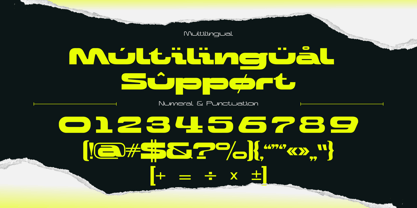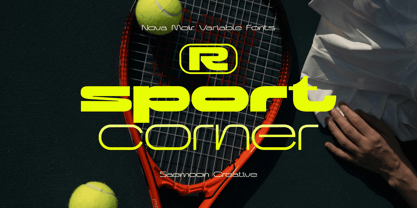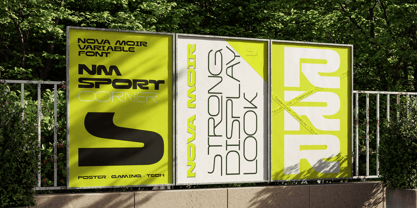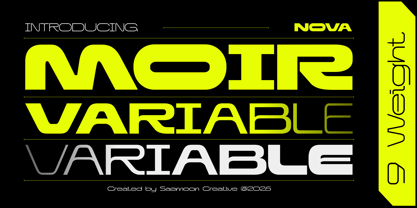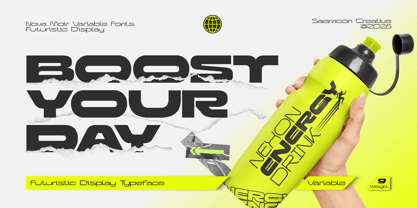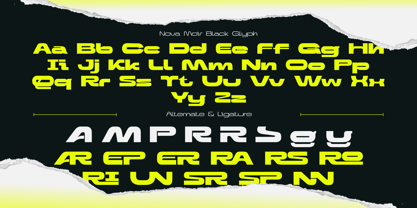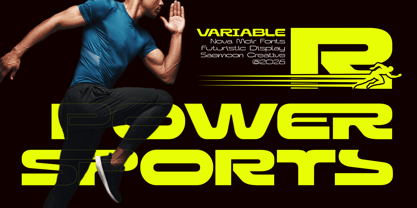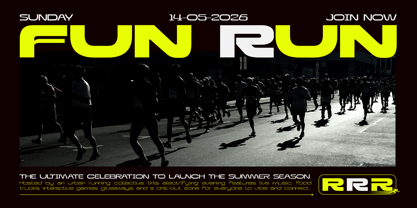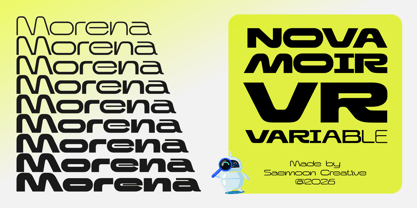
Nova Moir VR
The Nova Moir VR Font Family was designed by Sapto Susilo and published by Saemoon Creative. Nova Moir VR contains 1 styles. More about this family
Nova Moir Variable is a futuristic display typeface built with a flexible variable font system, allowing smooth weight adjustments from light to black. Inspired by modern technology, motorsport aesthetics, and sci-fi visuals, it features bold geometric shapes and distinctive letterforms that create a powerful and dynamic presence.
Its variable design gives creators greater control and versatility, making it ideal for branding, logos, headlines, posters, gaming projects, esports identities, packaging, and digital content. Whether you need a sleek lightweight appearance or an ultra-bold statement, Nova Moir adapts seamlessly to your creative vision.
Designed for modern designers who value both style and flexibility, Nova Moir Variable delivers futuristic character with maximum performance.
Features
• Variable Font (Weight Axis)
• Uppercase & Lowercase
• Numbers & Punctuation
• Ligatures & Alternate
• Multilingual Support
Nova Moir Variable combines innovation, flexibility, and futuristic aesthetics into a single powerful typeface.